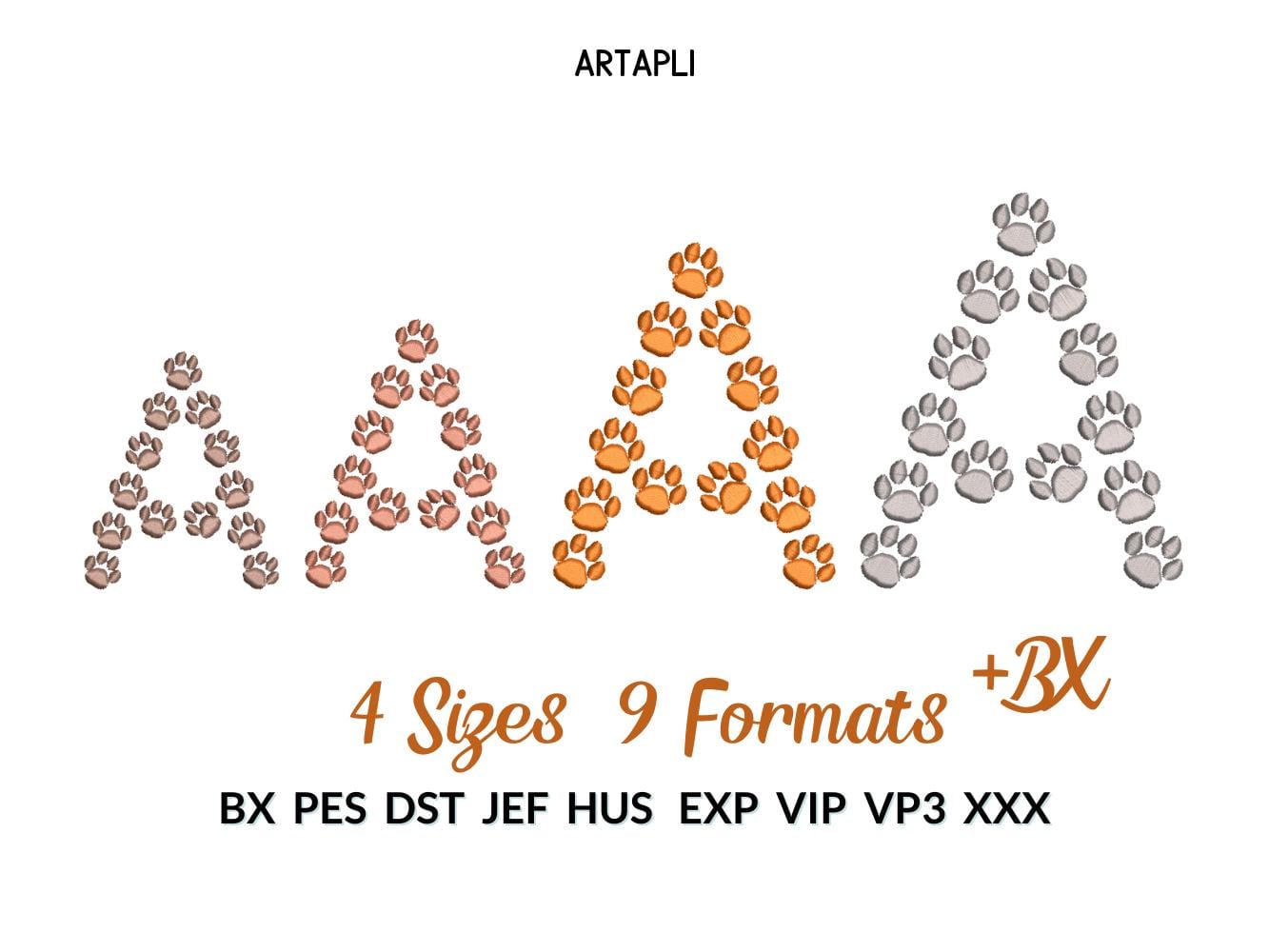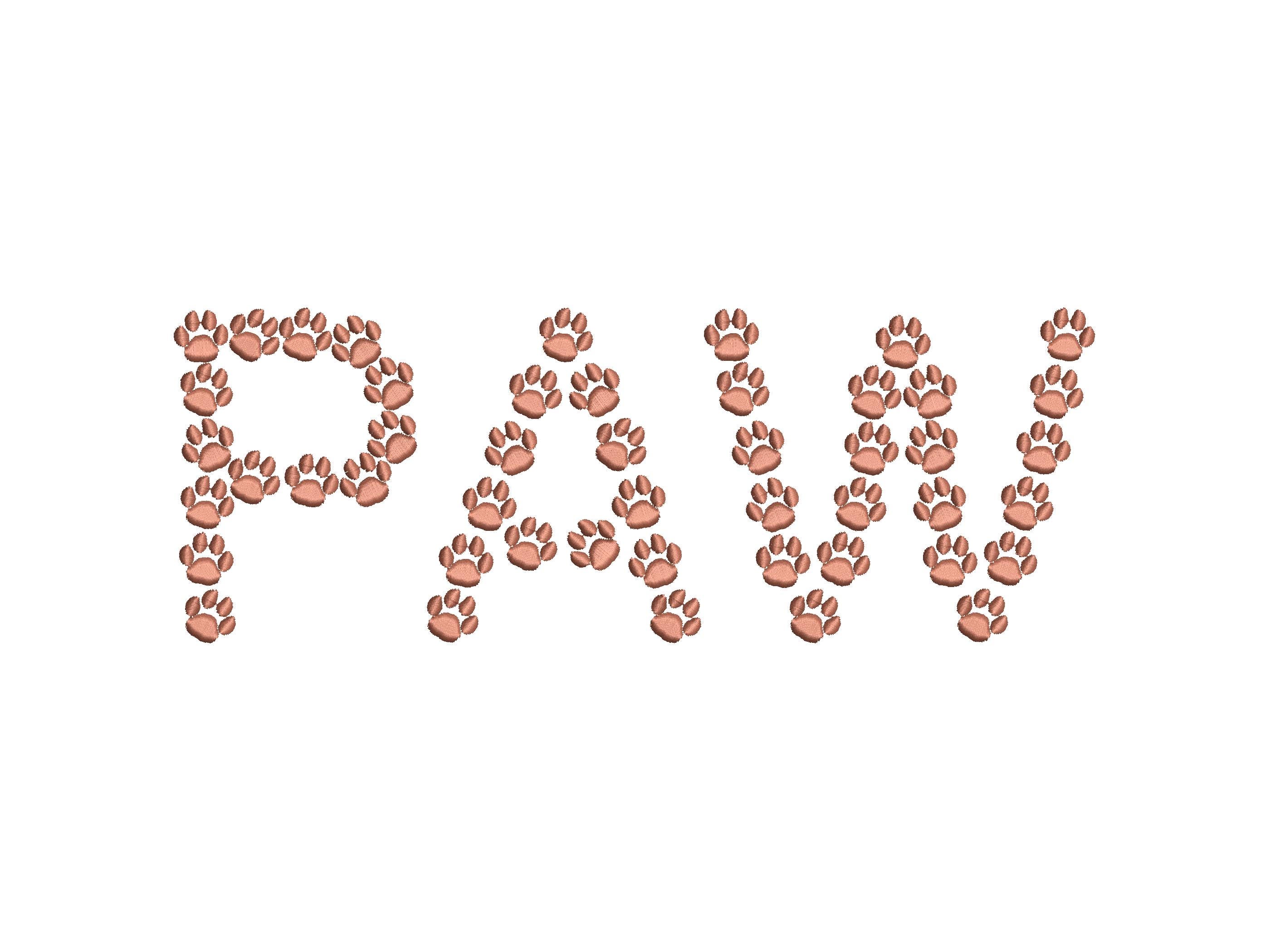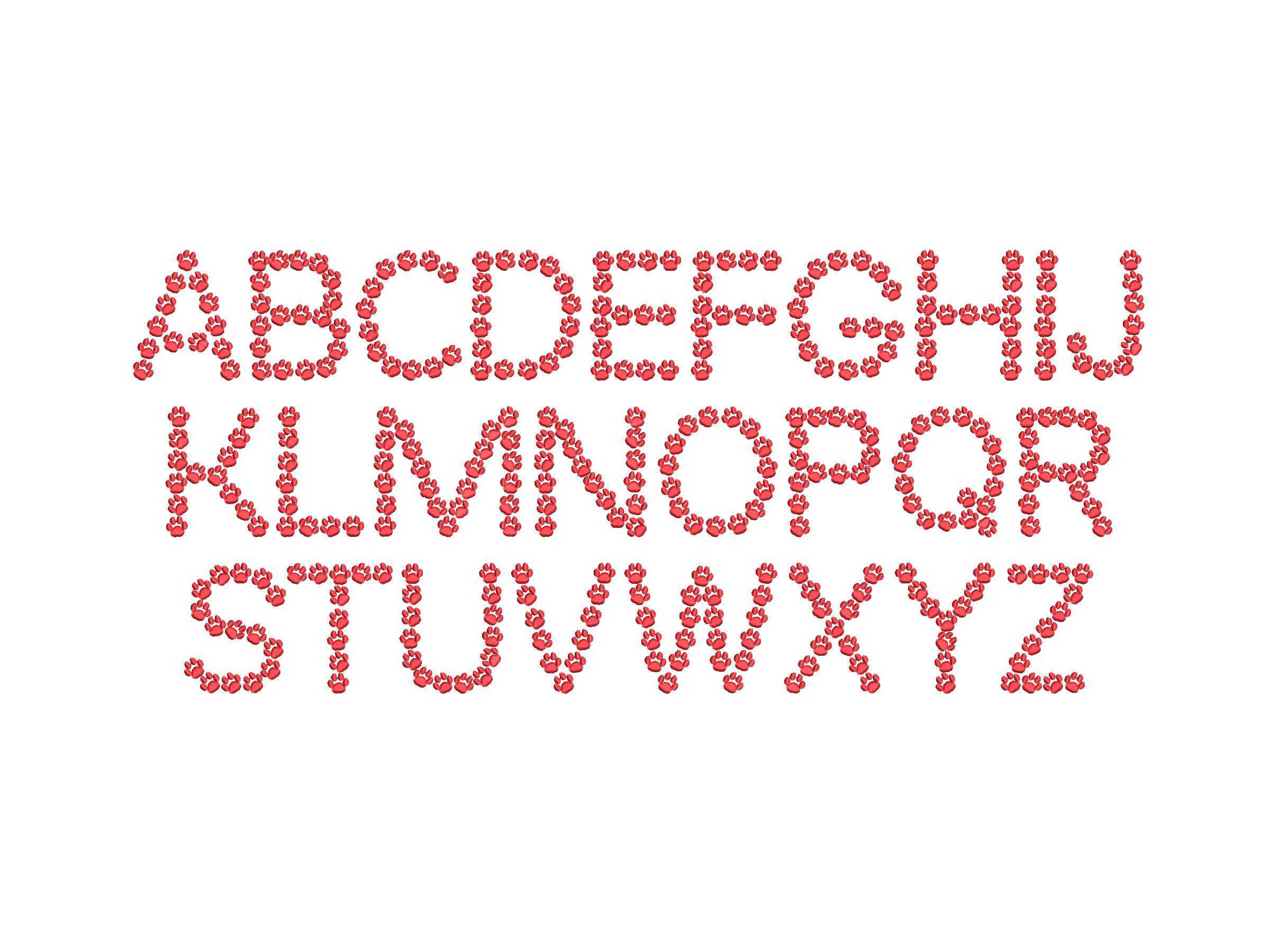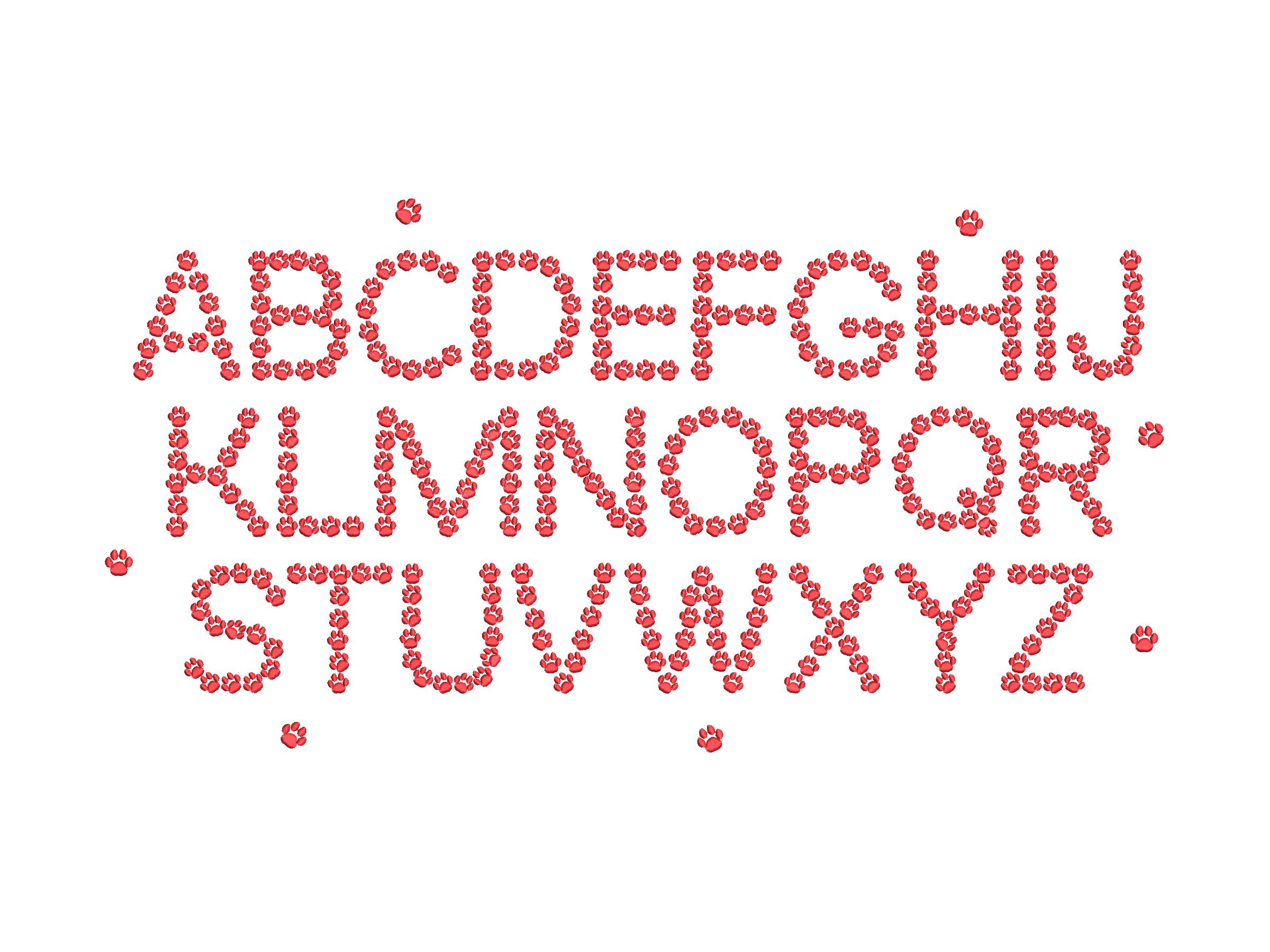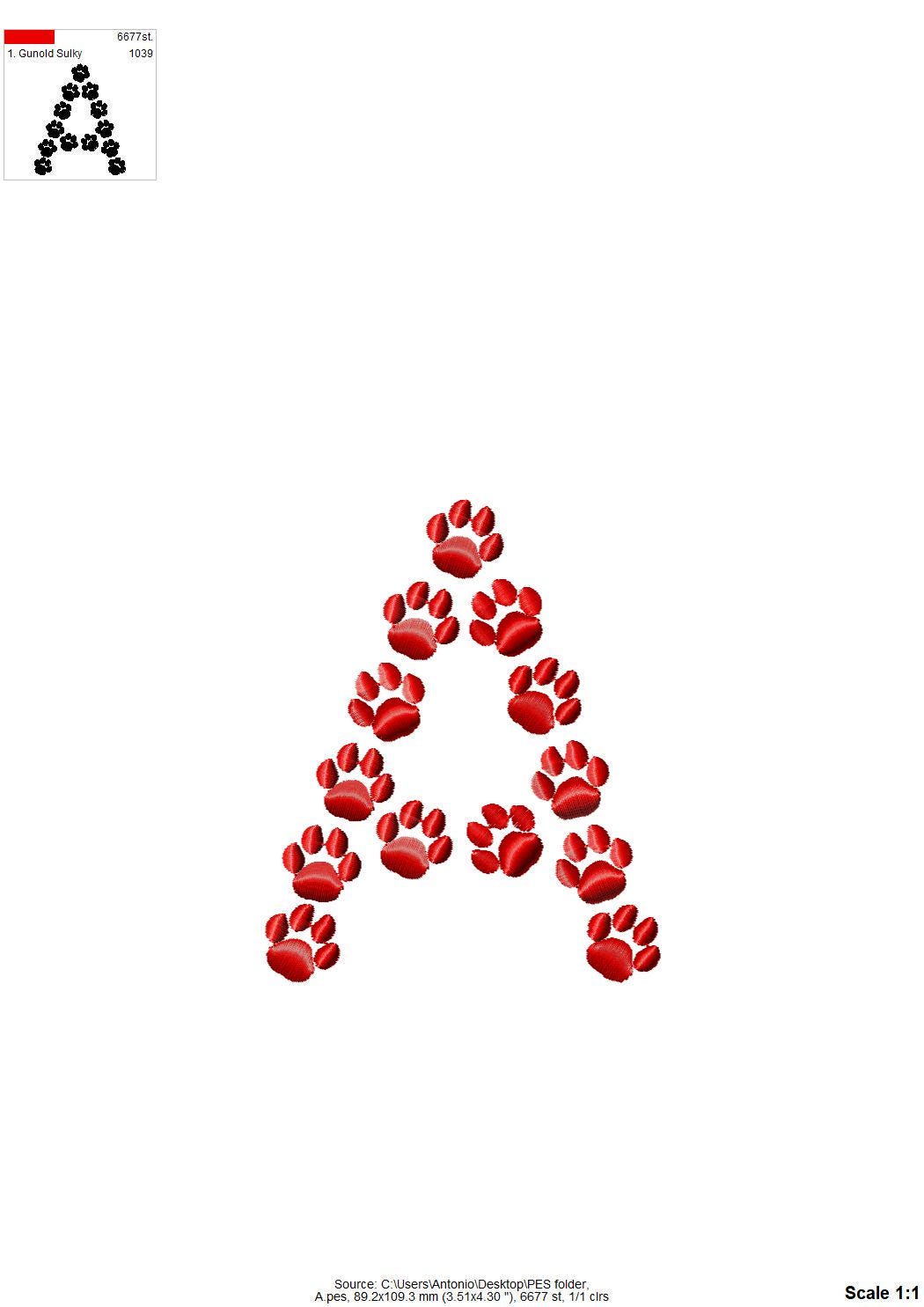
Dog Puppy Paw FONT tiny micro pawprint awesome alphabet letters A-Z monogram machine embroidery designs multiple sizes from 3 to 5in, and BX
Uppercase letters A-Z.
Add-on: tiny wee single pawprint design included, size 0.7 inch.